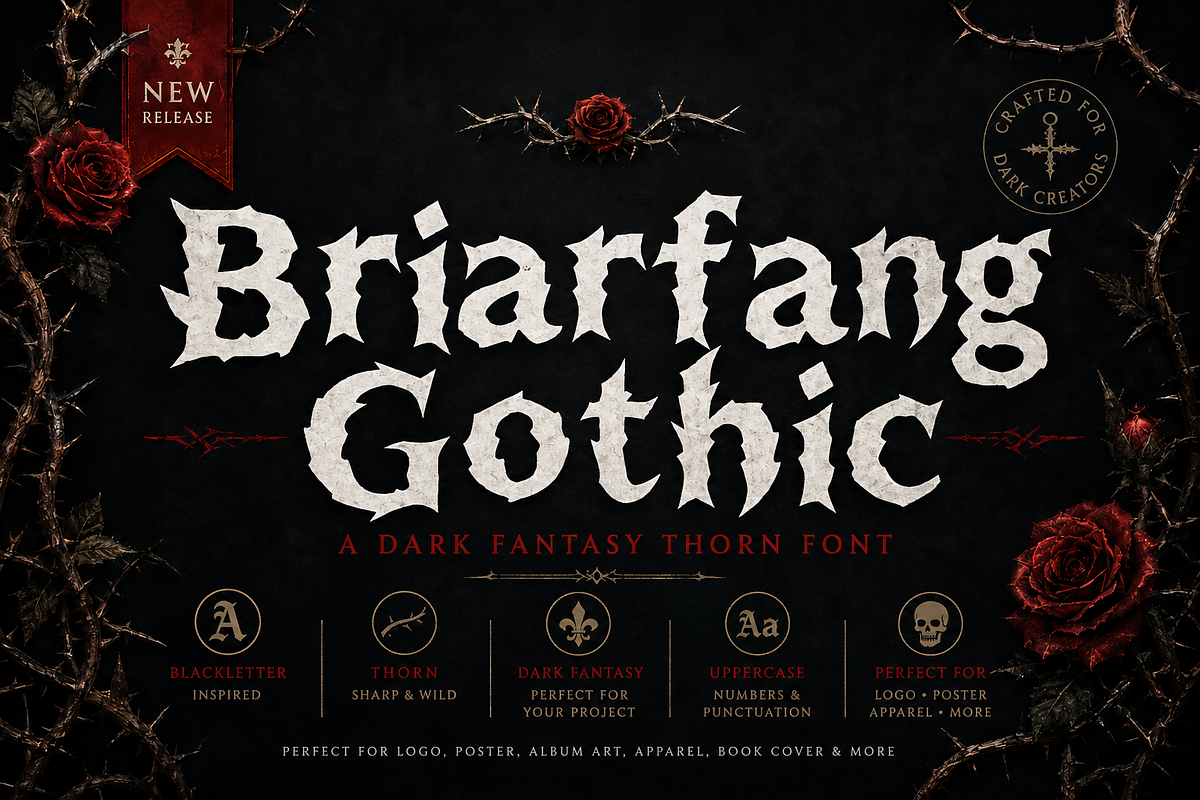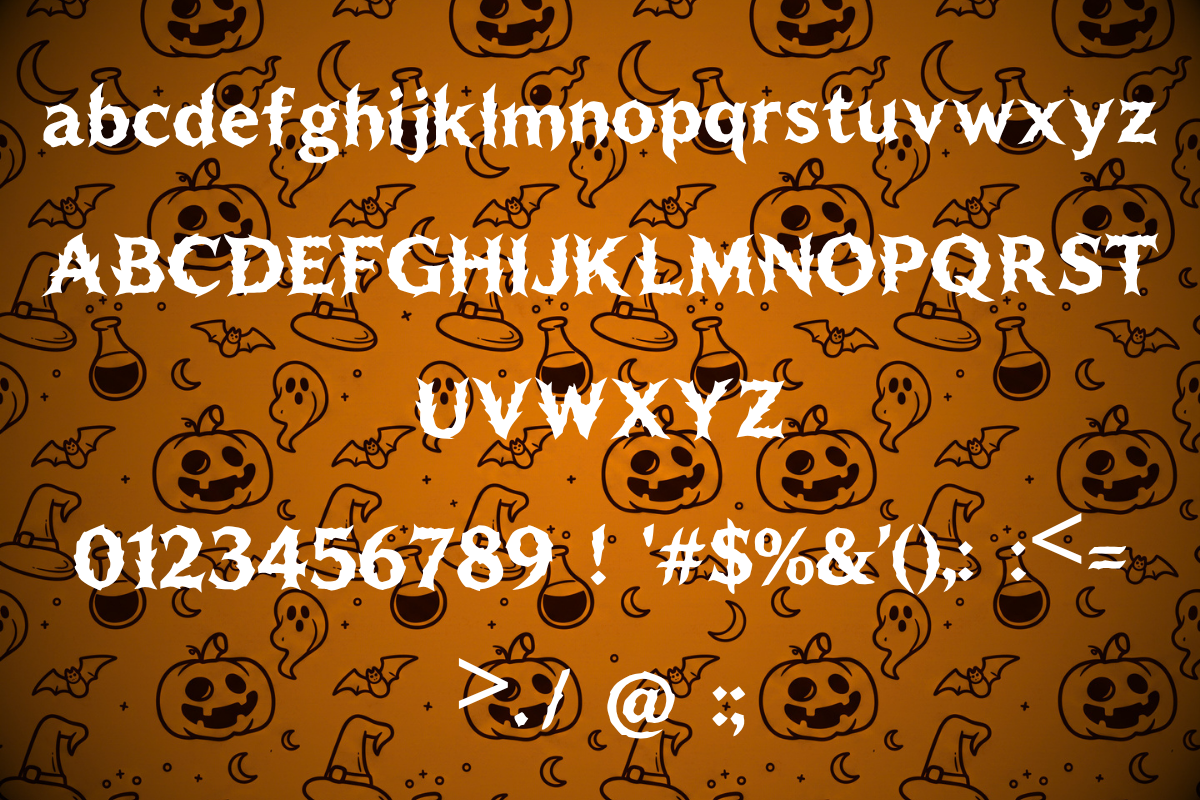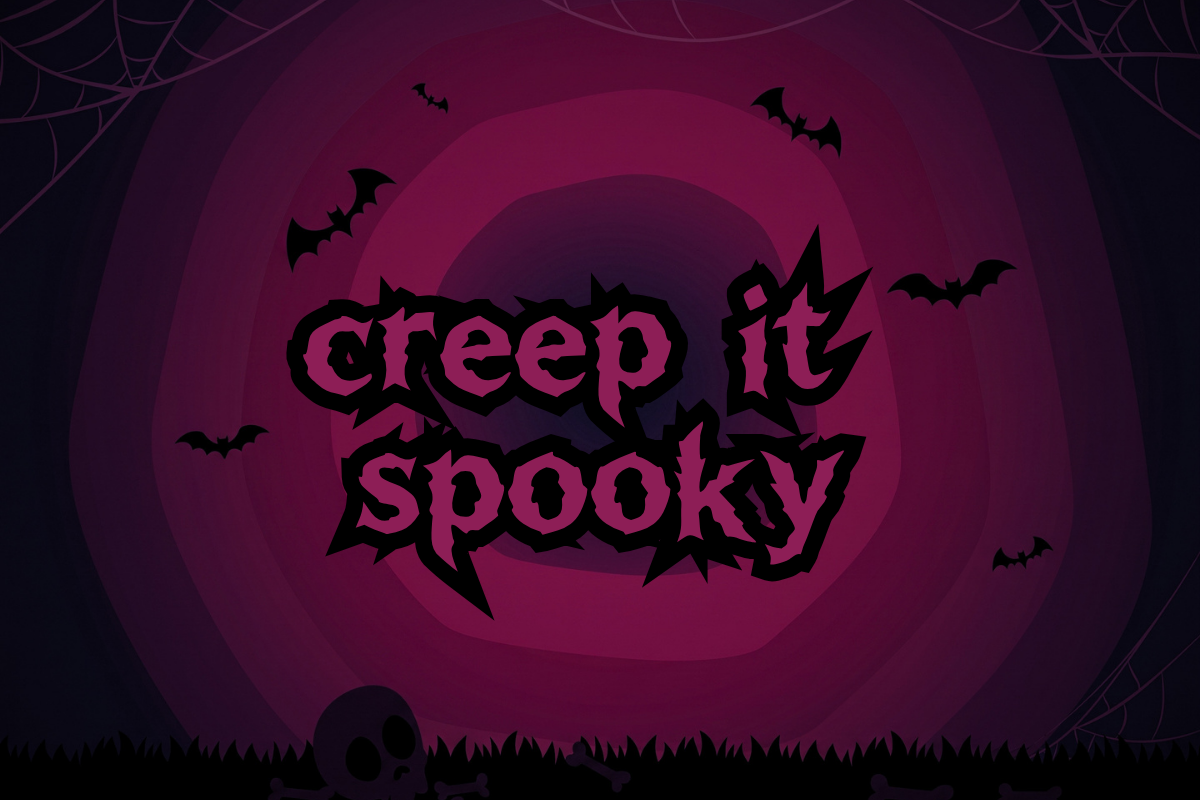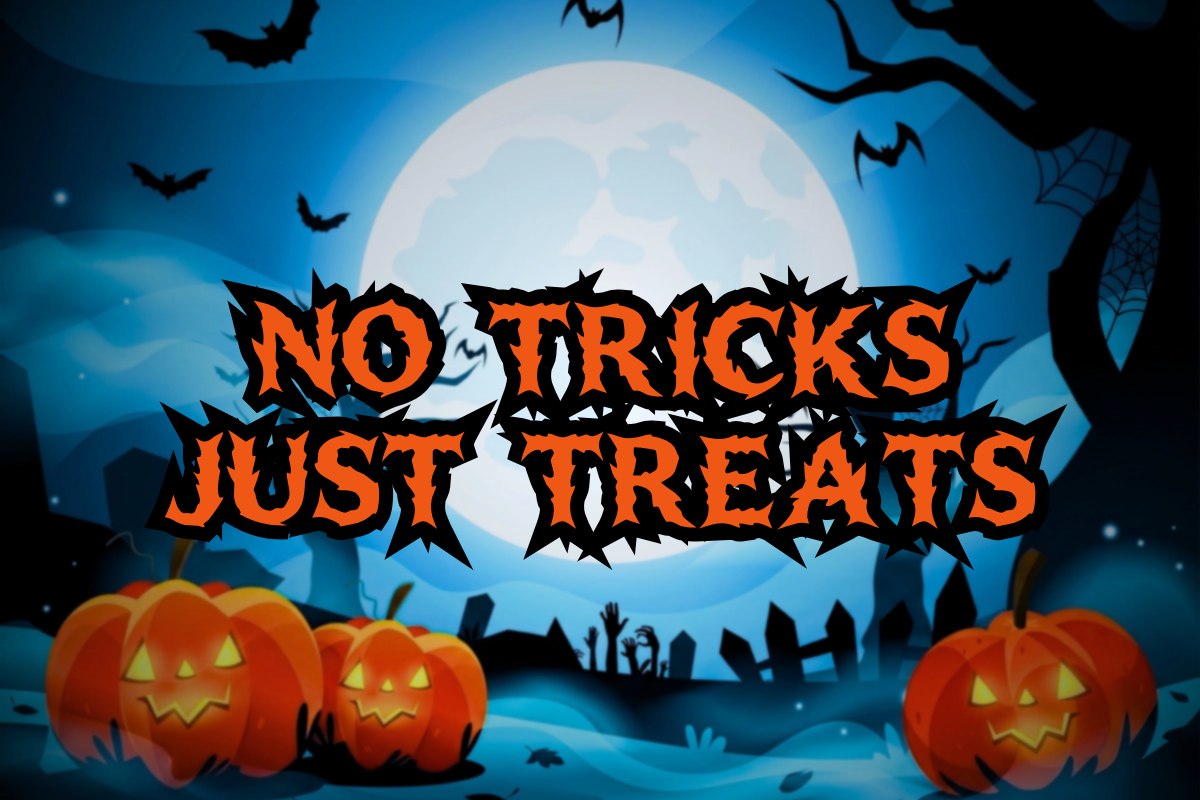
Briarfang Gothic Halloween Display
Step into the haunted briar thicket this Halloween with Briarfang Gothic — an intensely atmospheric witchy Halloween blackletter display typeface. Rooted in ancient witchcraft folklore, dark fairy tales, and wicked botanical lore, Briarfang Gothic merges sharp blackletter stems with aggressive thorn barbs, curving fang spurs, and interlocking bramble serrations. It feels like an ancient Halloween grimoire title carved from poisonous thornwood.
Whether you are designing a trending romantasy novel jacket, crafting a Halloween witch potion label, branding a dark fantasy video game, or creating spooky vinyl apparel, Briarfang Gothic delivers unmatched visceral tension. Every letterform is optimized with clean, continuous Bézier paths to ensure flawless cutting on vinyl plotters and crisp high-DPI print rendering.
Why Designers Love This Font
**Witchy Halloween Thorn & Fang Styling: **Masterfully balanced bramble spikes and fangs that look deadly without compromising legibility.
**Massive Seasonal & Fantasy Appeal: **Perfectly aligned with the booming Halloween Witchcraft, Romantasy, and Dark Fairy Tale markets.
**Robust Character Set: **Complete Uppercase (A–Z), Lowercase (a–z), Numerals (0–9), and essential punctuation symbols.
**Versatile Physical Fabrication: **Tested for clean laser engraving, foil stamping, screen printing, and Cricut Halloween vinyl cutting.
Halloween witch party invitations, haunted apothecary flyers, and spooky spellbook covers
Dark Romance, Romantasy, and Young Adult fantasy novel book jackets and titles
Witchcraft, occult potion bottles, poison garden elixirs, and botanical packaging
Fantasy RPG, MMORPG, and medieval adventure video game logos and UI
Halloween seasonal branding, haunted forest events, and maze signage
Heavy metal, symphonic gothic rock, and pagan folk band merchandise
Luxury dark lifestyle candles, botanical gin labels, and perfume packaging
Screen-printed apparel, streetwear hoodies, and embroidered jacket patches
Tattoo studio logos, flash art headers, and dark illustration typography
Cricut cutting, wood burning, laser etching, and Halloween crafting projects